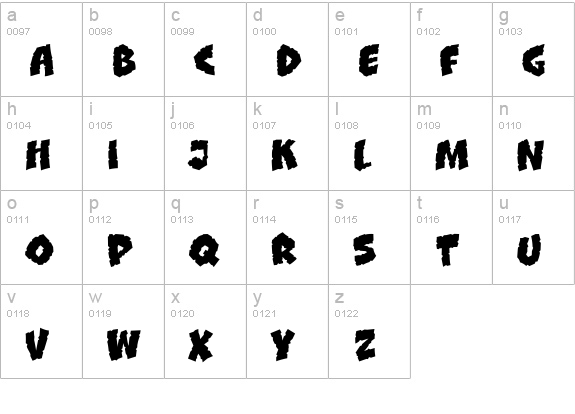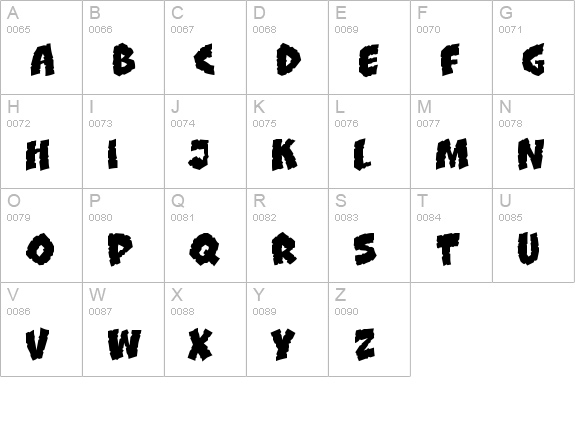
CCClobberinTime-Crunchy Font Details
Introducing CCClobberinTime-Crunchy font, a playful and energetic typeface that adds a touch of whimsy to any project. This unique font features bold, chunky letterforms with a crunchy texture that gives your text a dynamic and eye-catching appearance. Perfect for headlines, posters, logos, and more, CCClobberinTime-Crunchy font is sure to make a statement. Best of all, CCClobberinTime-Crunchy font is completely free to download at FontsMarket.com. Simply visit the website to access this fun and versatile font for all your design needs. Whether you're creating a fun and playful design or looking to add a touch of personality to your project, CCClobberinTime-Crunchy font is the perfect choice. Download it today and let your creativity shine!